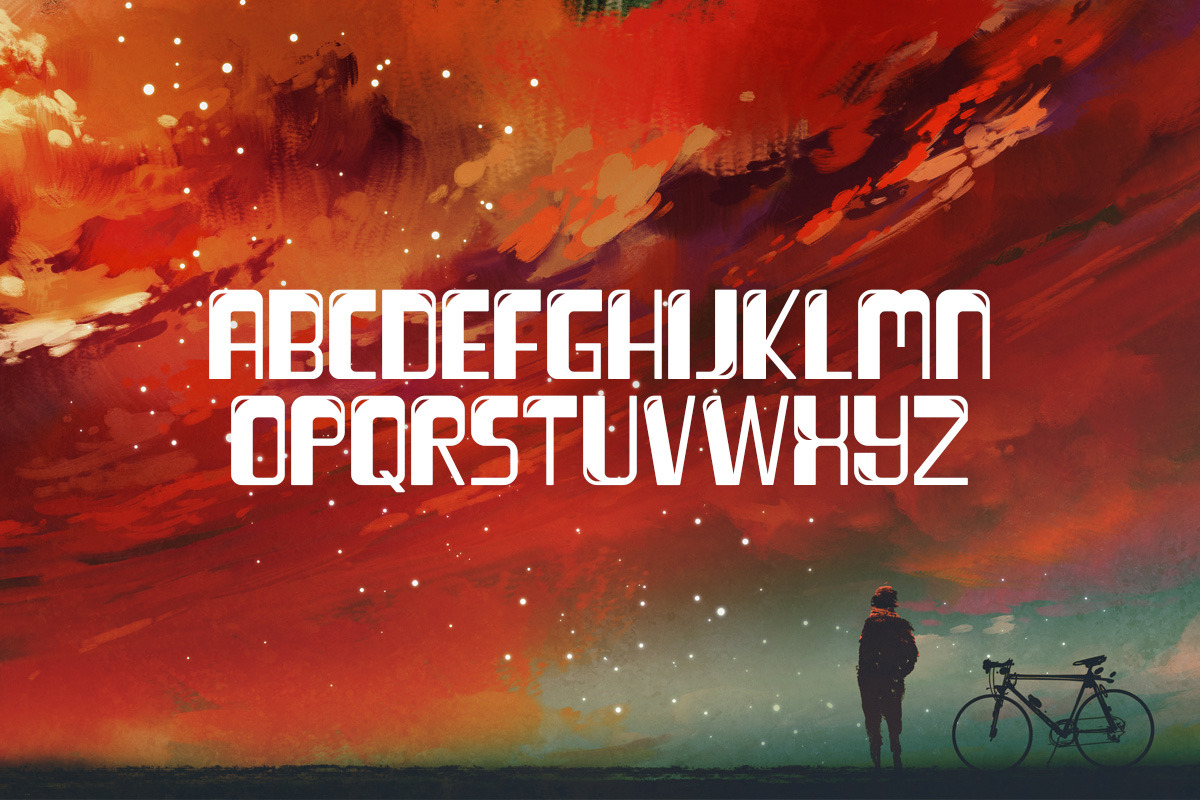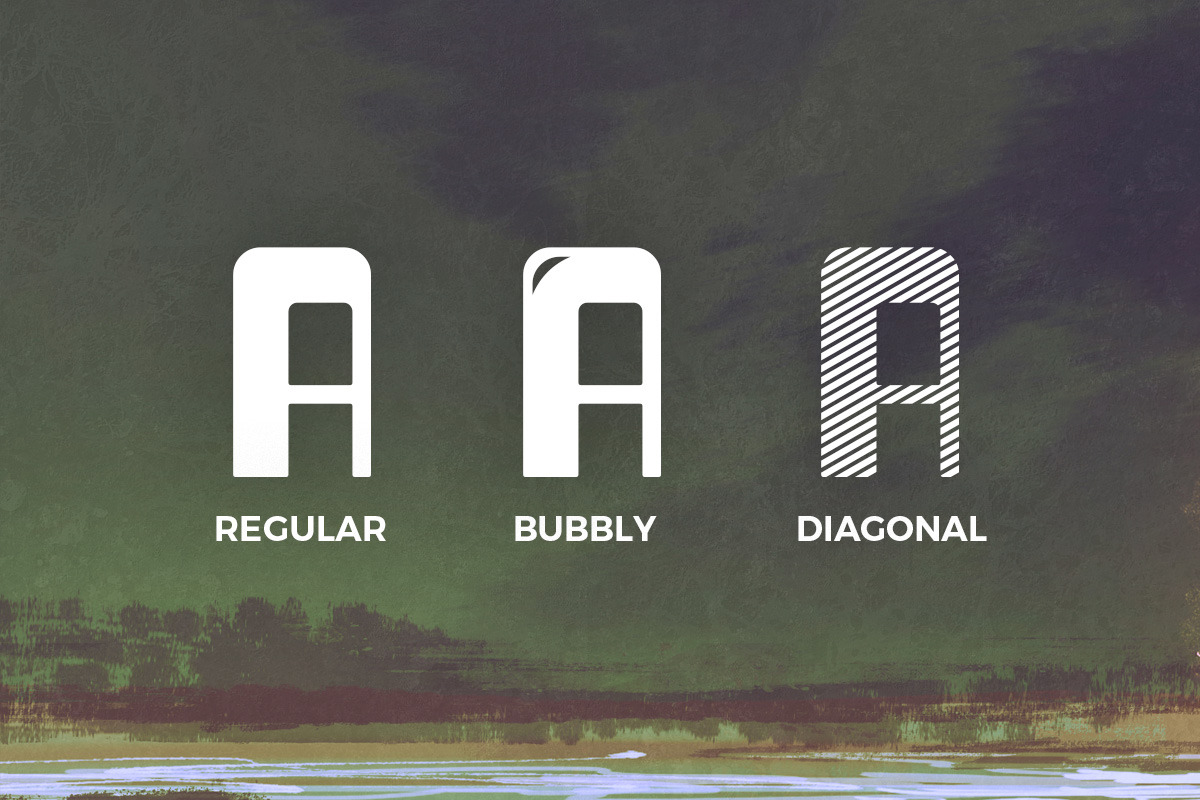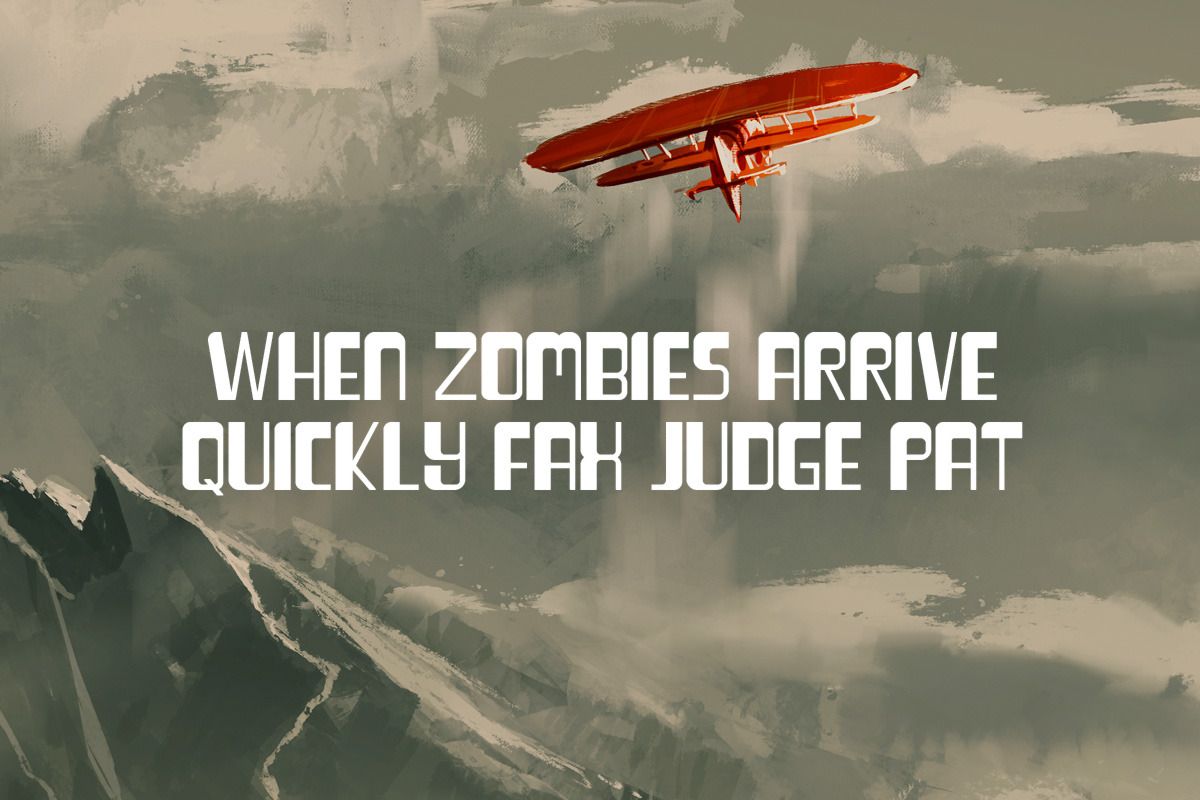
Dagon Typeface
Dagon Typeface by Tugcu Design Co. is a font selected for branding, posters, packaging, typography.
- It includes uppercase English letters, numbers and very basic punctuation.
- Dagon Bubbly Regular
- Dagon Diagonal Regular
- Dagon Regular Regular
Why Dagon Typeface is worth a look
Dagon Typeface by Tugcu Design Co. fits naturally into Branding, posters, packaging, typography.